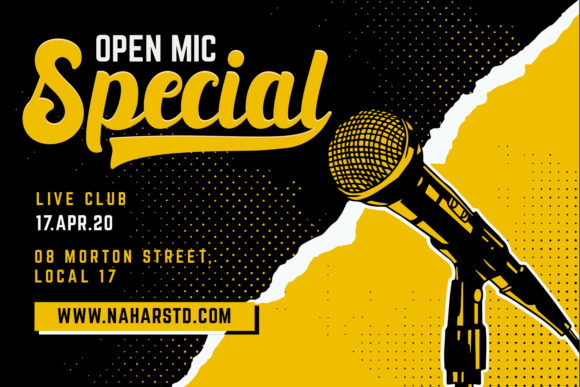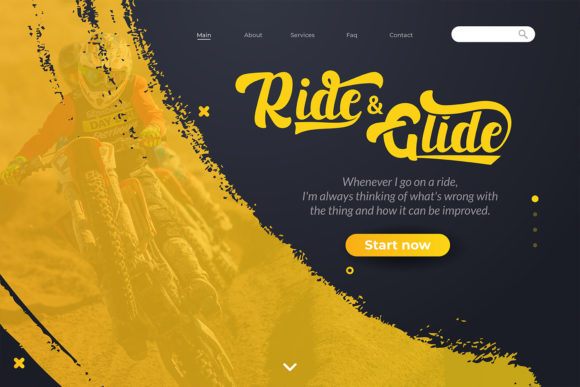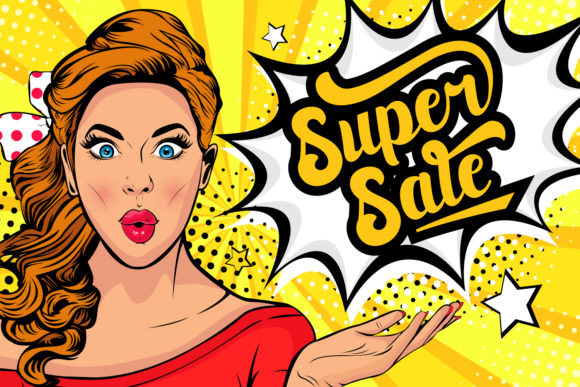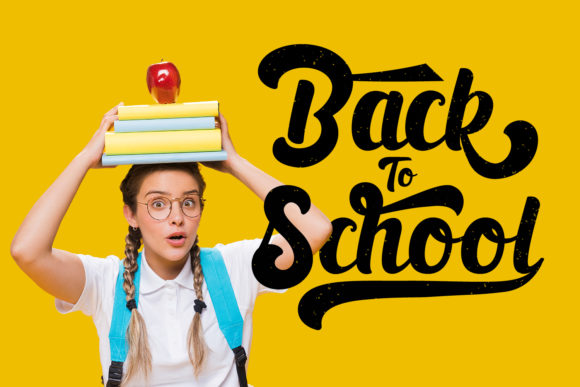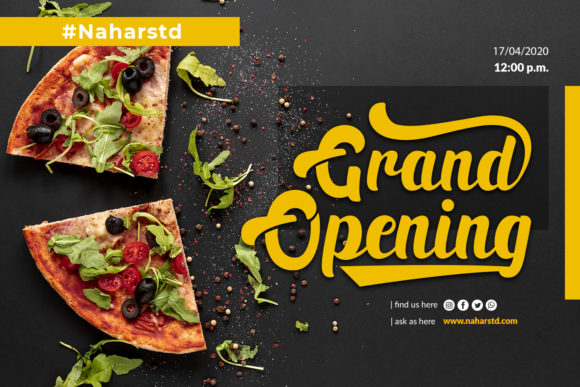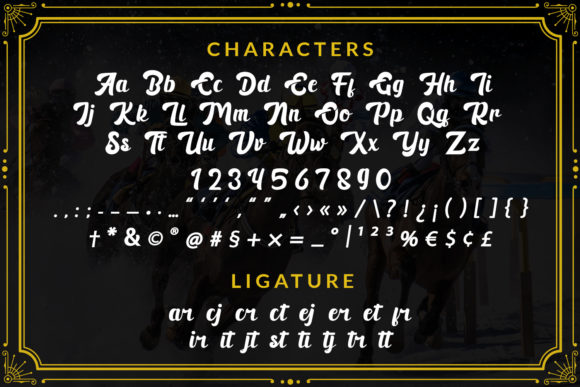
Introducing Black Ryder Font: Elevate Your Designs with Bold Elegance
In the world of design, fonts play a crucial role in conveying messages, evoking emotions, and creating lasting impressions. For designers and crafters seeking a bold yet elegant script font, Black Ryder Font is an exceptional choice. This stunning typeface is designed to add a touch of sophistication and glamour to various design projects, making it perfect for branding, logo design, posters, magazine covers, and more.
What Makes Black Ryder Font Stand Out?
Black Ryder Font boasts smooth curves and a bold presence that instantly captures attention. Its unique characteristics include:
- Bold and Elegant: Black Ryder Font exudes confidence and luxury, making it ideal for high-end branding and designs that require a sophisticated look.
- Smooth Curves: The font’s smooth curves add a touch of elegance, ensuring that your designs look refined and polished.
- Versatile: Whether you’re working on a logo, poster, or magazine cover, Black Ryder Font adapts seamlessly to various design projects.
Black Ryder Font’s versatility makes it an excellent choice for a wide range of design applications, including:
- Branding: Create a lasting impression with a bold and elegant font that reflects your brand’s personality.
- Logo Design: Make your logo stand out with a unique and eye-catching font that sets your brand apart.
- Posters: Add a touch of sophistication to your posters with a font that demands attention.
- Magazine Covers: Create a stunning first impression with a font that exudes elegance and refinement.
Why Choose Black Ryder Font?
In a sea of fonts, Black Ryder Font stands out for several reasons:
- Unique Design: Black Ryder Font’s distinctive design ensures that your projects will look fresh and original.
- Easy to Read: Despite its bold presence, the font remains easy to read, making it perfect for body text and headings.
- High-Quality: Black Ryder Font is crafted with high-quality standards, ensuring that it looks great in various resolutions and sizes.
Tips for Using Black Ryder Font
To get the most out of Black Ryder Font, consider the following tips:
- Pair with Contrasting Fonts: Combine Black Ryder Font with contrasting fonts to create visual interest and hierarchy.
- Experiment with Colors: Try different colors to find the perfect match for your design and brand.
- Use for Headings and Titles: Black Ryder Font is perfect for headings and titles, making it an excellent choice for creating visual impact.
Black Ryder Font is a bold script font that offers a perfect blend of elegance and sophistication. Its smooth curves, bold presence, and versatility make it an excellent choice for various design projects. Whether you’re a designer or crafter, Black Ryder Font is sure to elevate your designs and leave a lasting impression. So, what are you waiting for? Get creative with Black Ryder Font and take your designs to the next level!